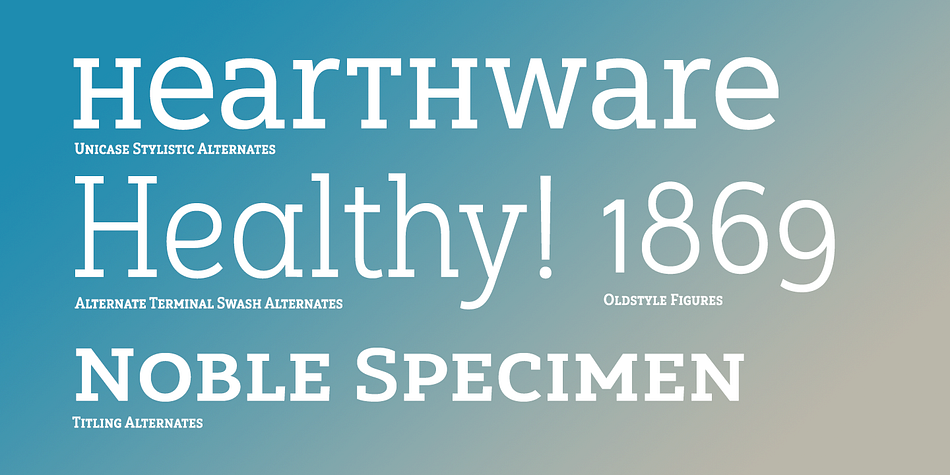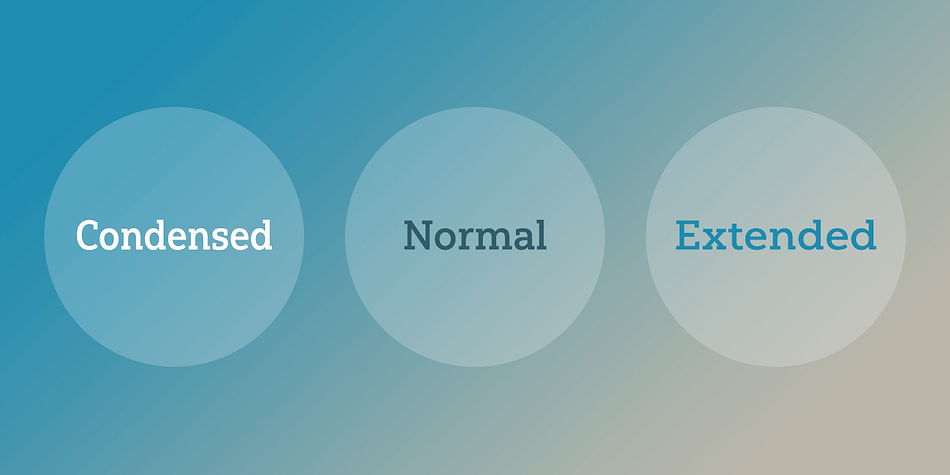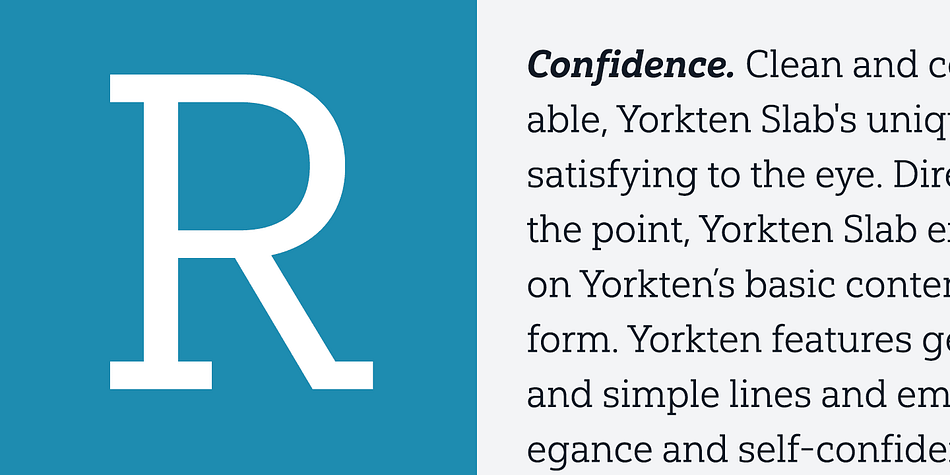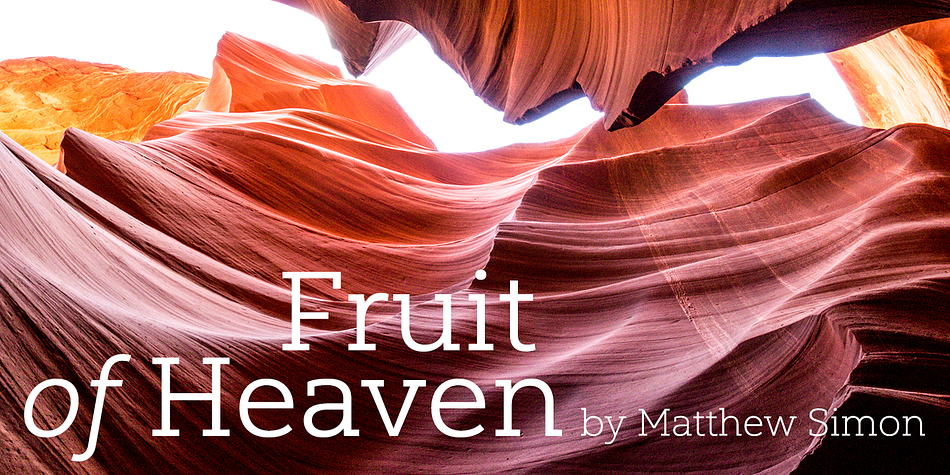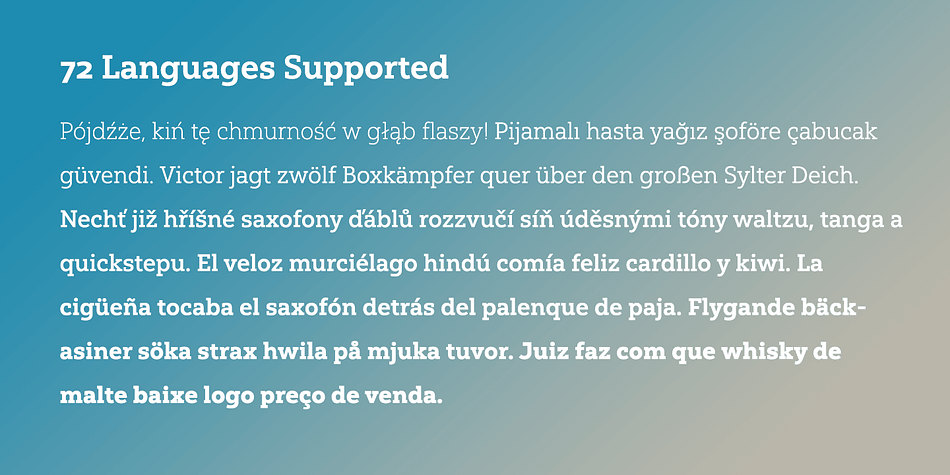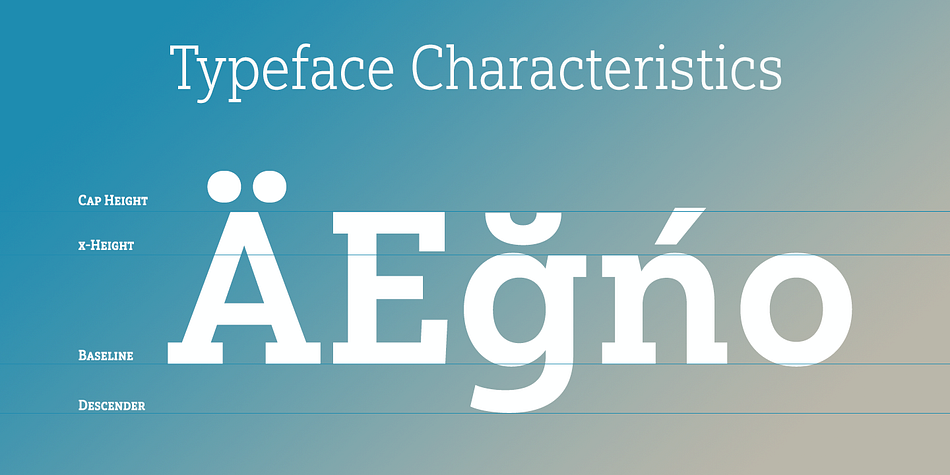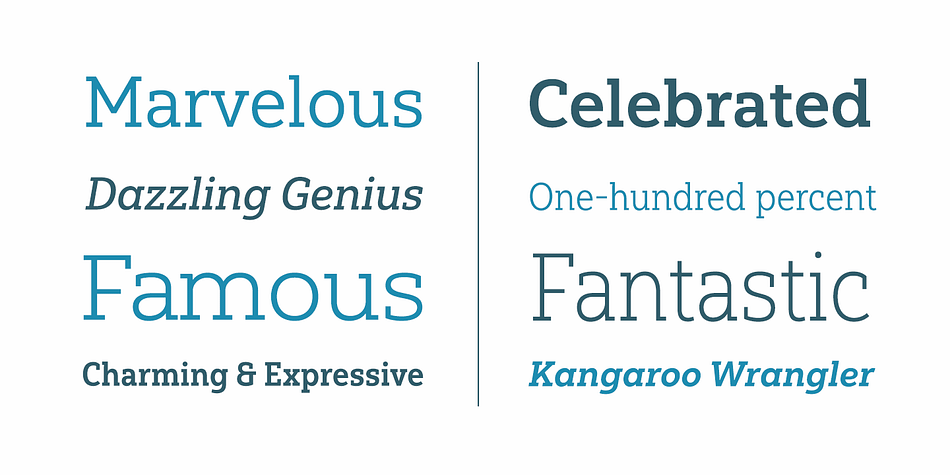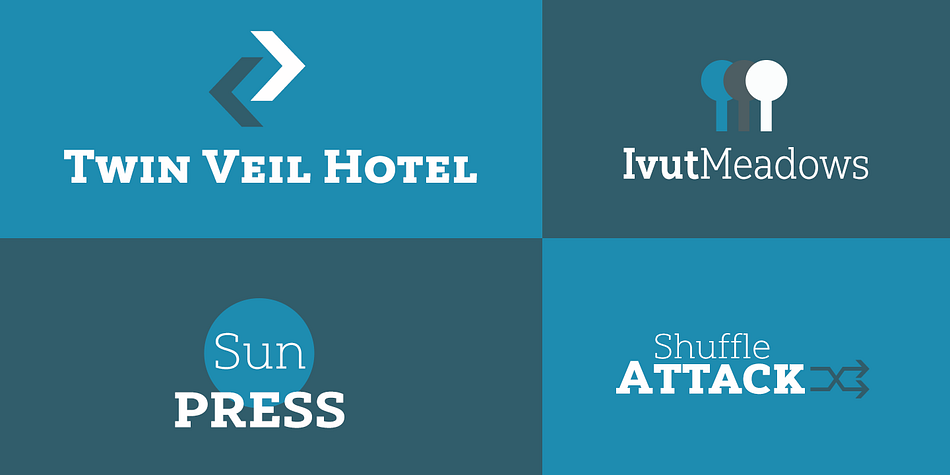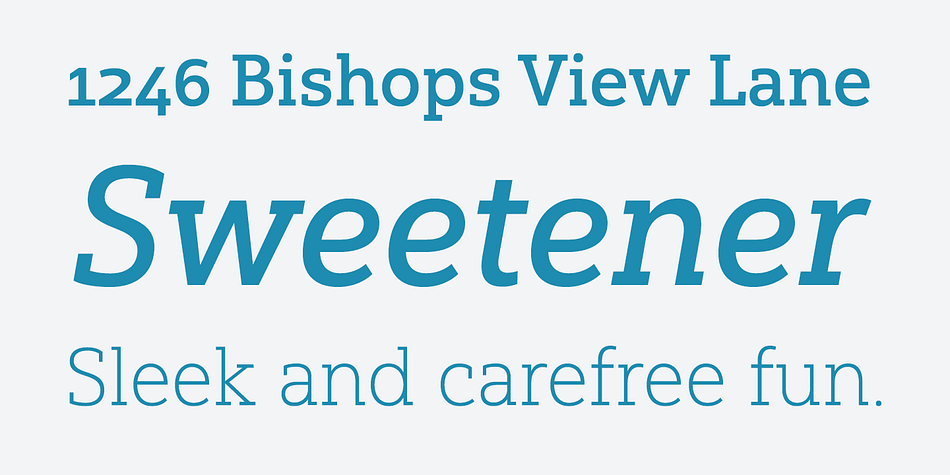
Yorkten Slab is a slab serif font family. This typeface has fifty-four styles and was published by Insigne Design.
The Yorkten family of fonts is back with another satisfying addition to its clean style. The rhythmic, new Yorkten Slab expands Yorkten’s basic, contemporary form of geometric and simple lines and adds a level of self-confidence and elegance to your work.
Slab’s basic structure is compact. It’s more condensed than most slabs, so you can save space yet still have clear, consistent readability. The added serifs create a fresh text color, too, that syncs well with the new font’s inherited features.
Like its predecessor, Yorkten Slab offers its natural, simple structure with more than fifty fonts in the family and three different widths - extended, normal or condensed. Each group has eight weights from a lean thin to tough looking black, giving Yorkten Slab plenty of bragging rights among its peers.
And like Yorkten, too, Yorkten Slab’s greatest value is the ability of its members to work easily and well together and with a variety of other fonts. Yorkten Slab ensures that you have the necessary tools for any challenge. In combination with its superior functionality and excellent readability, this versatile font can be effectively used for many print and screen operations: e-books, applications, headlines, banners, posters and websites to name a few options.